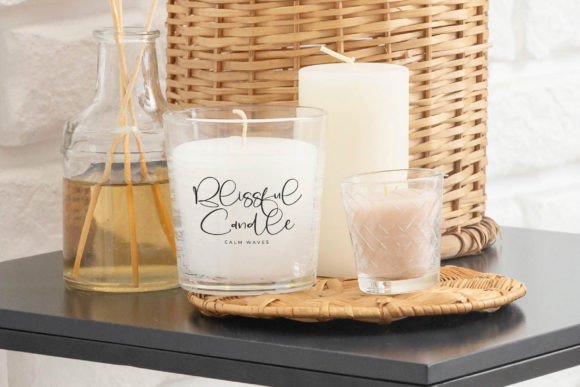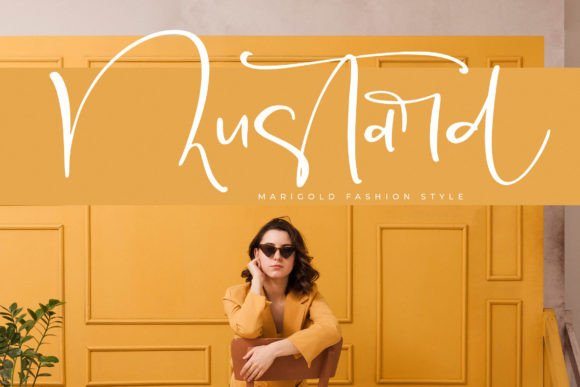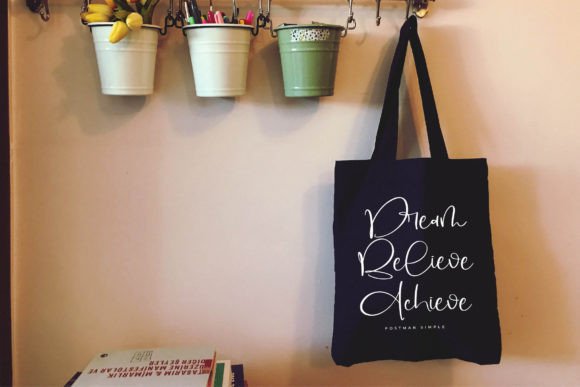
Introduction to Mustard Simple Font
Have you ever been in the middle of a creative project, and the perfect font is just out of reach? You know, that elusive element that brings your design to life? For designers, finding the right font can be a game-changer. And today, we’re excited to introduce you to Mustard Simple Font, a modern handwritten typeface that’s about to become your new favorite design resource.
With its unique blend of handwritten style and modern elements, Mustard Simple Font is perfect for a wide range of projects, from apparel and home decor to digital content and branding. And the best part? It’s available for free download, making it an accessible and valuable addition to any designer’s toolkit. Whether you’re working on a high-quality design project or just need a little creative inspiration, Mustard Simple Font is sure to deliver.
Key Features of Mustard Simple Font
- High-quality design resource suitable for creative projects, offering a unique and modern aesthetic.
- Translucent and transparent background options, allowing for seamless integration into various design contexts.
- Perfect for use in digital and print-based creative projects, including logos, branding, and advertising materials.
- Exclusive design element that sets it apart from other fonts, making it an ideal choice for designers seeking a distinctive look.
Honest Review: Mustard Simple Font
I recently had the chance to work with the Mustard Simple Font, and I must say it’s been a great addition to my design resources. This free download has proven to be a high-quality asset for my creative projects.
One of the things that really stands out about the Mustard Simple Font is its versatility. I’ve used it for a variety of projects, from blog headers to social media graphics, and it always looks great.
- ✨ High-quality design: The font is crisp and clean, making it perfect for both digital and print projects.
- ✨ Transparent background: This feature allows me to easily combine the font with other design elements.
However, I do have a few limitations to mention:
- ⚠️ Limited font styles: While the Mustard Simple Font is versatile, it’s not available in a wide range of styles or weights.
- ⚠️ Not suitable for complex text: Due to its simplicity, the font may not be the best choice for projects that require a lot of text or intricate details.
Overall, I’m very impressed with the Mustard Simple Font. It’s a great addition to any design resource library, and I’m happy to recommend it to my fellow designers.
The Mustard Simple Font is a high-quality design resource perfect for creative projects. This free download offers a clean and modern aesthetic, making it ideal for various applications.
To get the most out of the Mustard Simple Font, use it in conjunction with a transparent background to create a clean and modern look. Experiment with different font sizes and styles to add depth and visual interest to your designs.
The Mustard Simple Font is perfect for a variety of creative projects, including:
- Business cards and brochures
- Posters and flyers
- Presentations and documents
Yes, the Mustard Simple Font supports transparent backgrounds, making it ideal for use in designs with complex backgrounds or layered elements. This feature is particularly useful for creating high-quality design resources, such as icons, logos, and graphics.